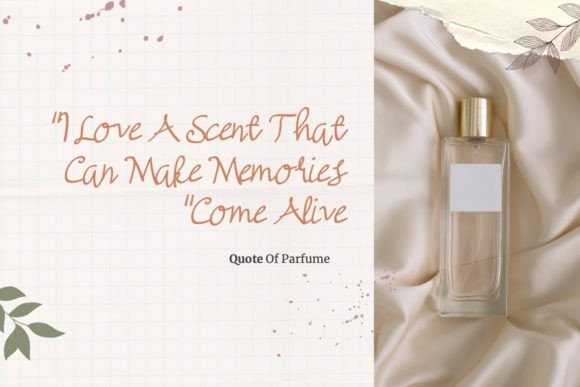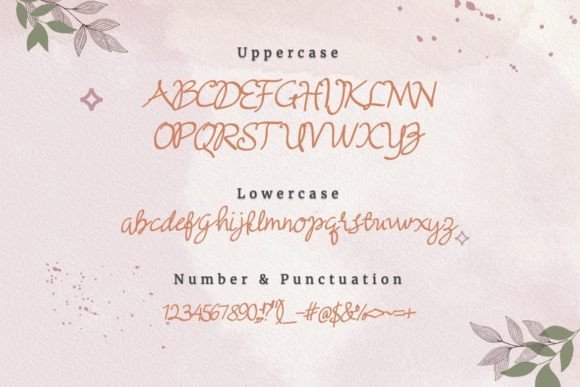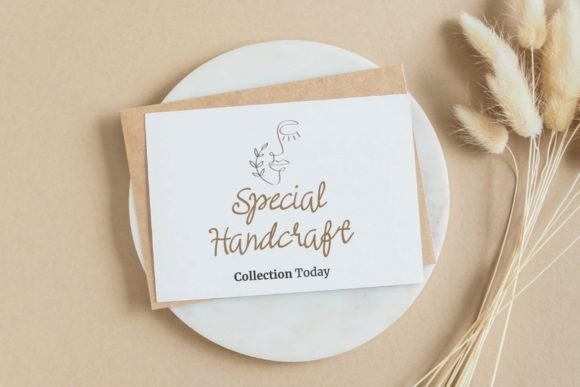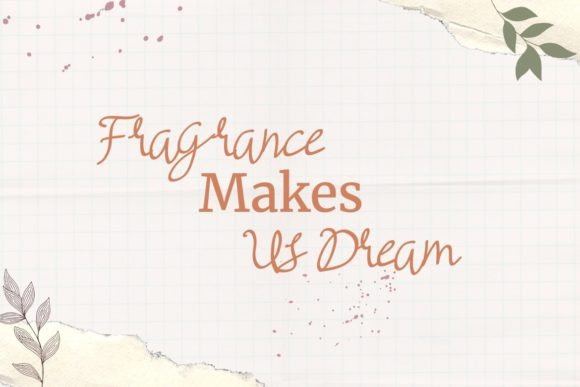
The Whimsical World of Eleanorak Font
I’ll never forget the time I was working on a branding project for a quirky new cafe, and I just couldn’t find the right font to capture their playful vibe. I scrolled through page after page of Google Fonts, but nothing seemed quite right. That was until I stumbled upon Eleanorak Font – a charming, handwritten font that instantly brought a smile to my face. Its uneven strokes and playful loops conveyed a sense of creative spontaneity that was perfect for the cafe’s brand. In this article, I’ll share my love for Eleanorak Font, its features, and how to make the most of it in your designs.
An Honest Review of Eleanorak Font
- 💫 Unique and eye-catching design that’s sure to stand out
- ✅ Perfect for playful branding, social media graphics, and greeting cards
- 🎉 Easy to read, even in smaller sizes
- 👍 Highly versatile and adaptable to different design styles
- ⚠️ May not be suitable for very formal or professional designs
- 🤔 Some users may find the uneven strokes and loops too playful or distracting
- Experiment with OpenType features, such as stylistic alternates and glyphs, to add more personality to your design
The Backstory of Eleanorak Font
Eleanorak Font was designed by a talented type designer who’s passionate about creating unique and creative fonts. Inspired by the world of art and design, Eleanorak Font is the result of a meticulous process that involved sketching, refining, and testing. The result is a font that’s both playful and elegant, perfect for designers who want to add a touch of whimsy to their projects.
| Font Name | Eleanorak Font |
| Author | Yumnacreative |
| What type of designs is Eleanorak Font best suited for? | Eleanorak Font is perfect for playful branding, social media graphics, greeting cards, and any design that requires a touch of whimsy. |
| Is Eleanorak Font easy to read? | Yes, Eleanorak Font is designed to be easy to read, even in smaller sizes. |